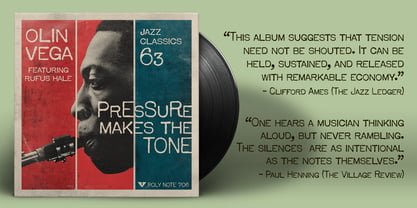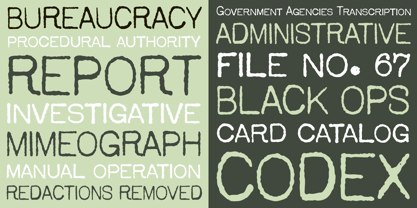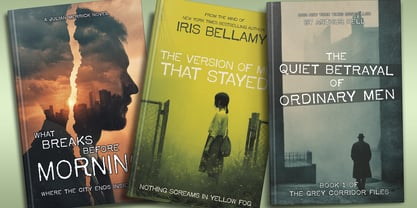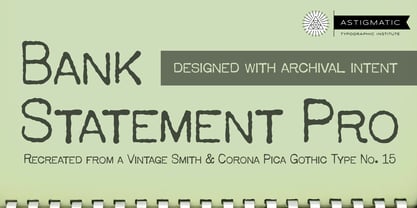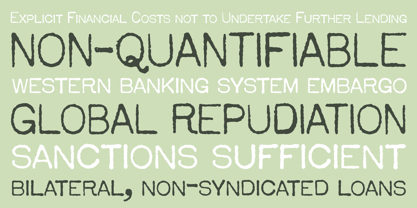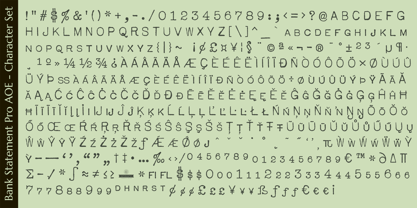
Bank Statement Pro AOE
by Astigmatic
The Bank Statement Pro AOE Font Family was designed by Brian J. Bonislawsky and published by Astigmatic. Bank Statement Pro AOE contains 1 styles.
Bank Statement Pro AOE originates from the mechanical imprint of mid-century office typewriters, faithfully reconstructed from the utilitarian lettering of a Smith & Corona Pica Gothic Type No. 15 keyset. Preserved within the archives of the Astigmatic One Eye Typographic Institute, this alphabet reflects the quiet authority of administrative documents, investigative files, and institutional correspondence. Each character retains the subtle irregularities created by real mechanical typebars: slight ink spread, minute baseline inconsistencies, and the restrained pressure marks of ribbon impact. Rather than polishing away these artifacts, the design preserves them as evidence of the physical typing process that once defined bureaucratic communication. The result is a typeface that feels procedural, operational, and historically grounded. Bank Statement Pro AOE carries the visual language of carbon copies, typed reports, filing cabinets, and official memoranda. It reads with the calm authority of documentation meant to be archived, referenced, and filed for decades. This specimen performs particularly well in projects requiring authenticity and institutional credibility. It is well suited to archival branding systems, documentary design, investigative dossiers, forms, transcripts, period reconstructions, and editorial layouts rooted in bureaucracy and research culture.